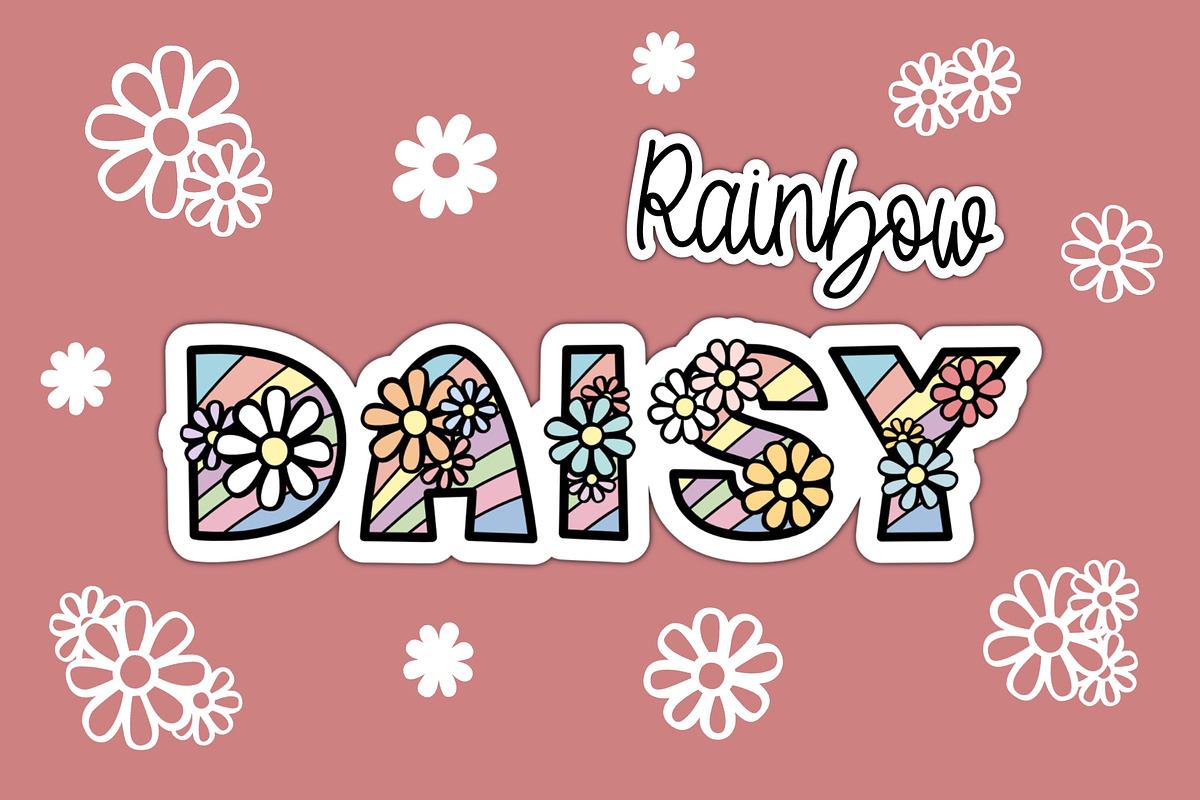
Daisy Rainbow OTF Font is perfect for children's book design, playful party invitations, cheerful greeting cards, vibrant social media graphics, rainbow-themed events, joyful birthday materials, colorful craft projects, spring festival promotions, happy educational content, bright lifestyle brands, optimistic marketing campaigns, and delightful creative communications.
Daisy Rainbow OTF Font is exciting because it captures the pure joy and innocent wonder of childhood dreams through its whimsical letterforms that dance with the vibrant colors of rainbow magic and the cheerful simplicity of daisy chains in sunny meadows. This enchanting typeface features playful character shapes with rainbow-inspired flourishes that evoke the happiness of spring gardens, the excitement of colorful celebrations, and the endless optimism that makes life beautiful. The font's joyful aesthetic creates instant emotional connections with audiences who appreciate happiness, positivity, and the magical beauty of life's most colorful moments.
This joyful typography solution transforms ordinary communications into magical rainbow experiences through its authentic cheerful aesthetic and colorful design language. Daisy Rainbow OTF Font Free Download enables designers and happy brands to access premium colorful typography that instantly adds joy, optimism, and rainbow magic to any creative project. The font's carefully crafted playful elements ensure authentic cheerful character while maintaining excellent readability and distinctive rainbow presence.
Children's brands, party planners, and joyful businesses trust Daisy Rainbow OTF Font for its ability to communicate happiness, innocence, and magical joy to audiences seeking authentic cheerful experiences and rainbow-colored celebrations. The typeface's playful construction performs beautifully across various applications, from intimate children's communications to large-scale rainbow branding campaigns. Its extensive character support includes multilingual capabilities and colorful design elements that enhance joyful brand presentations.
The creative inspiration behind Daisy Rainbow OTF Font draws from childhood wonder, spring garden beauty, and the universal magic found in rainbows that brings hope, happiness, and colorful dreams to people of all ages. This joy-focused approach creates a font that feels genuinely magical while maintaining contemporary appeal across different cheerful contexts and rainbow brand expressions.